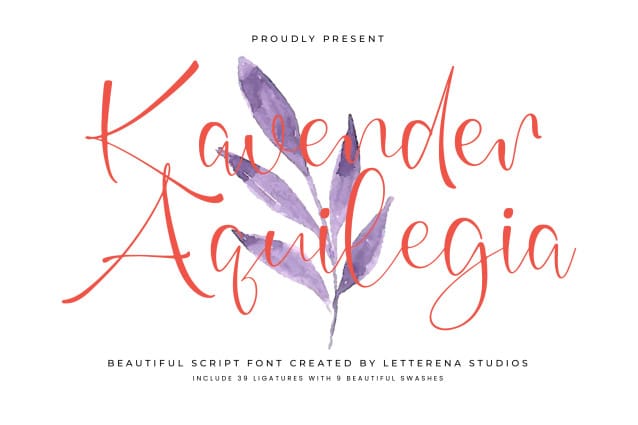
Kavender Aquilegia Font
Kavender Aquilegia Font – Beautiful Script Font , from Letterena, is a Luxury Script font, suitable for any projects such as: logos, branding projects, homeware designs, product packaging, mugs, quotes, posters, shopping bags, t-shirts, book covers, name card, invitation cards, greeting cards, label, photography, watermark, special events, and all your other luxury and beautiful projects that need a Luxury Script taste.